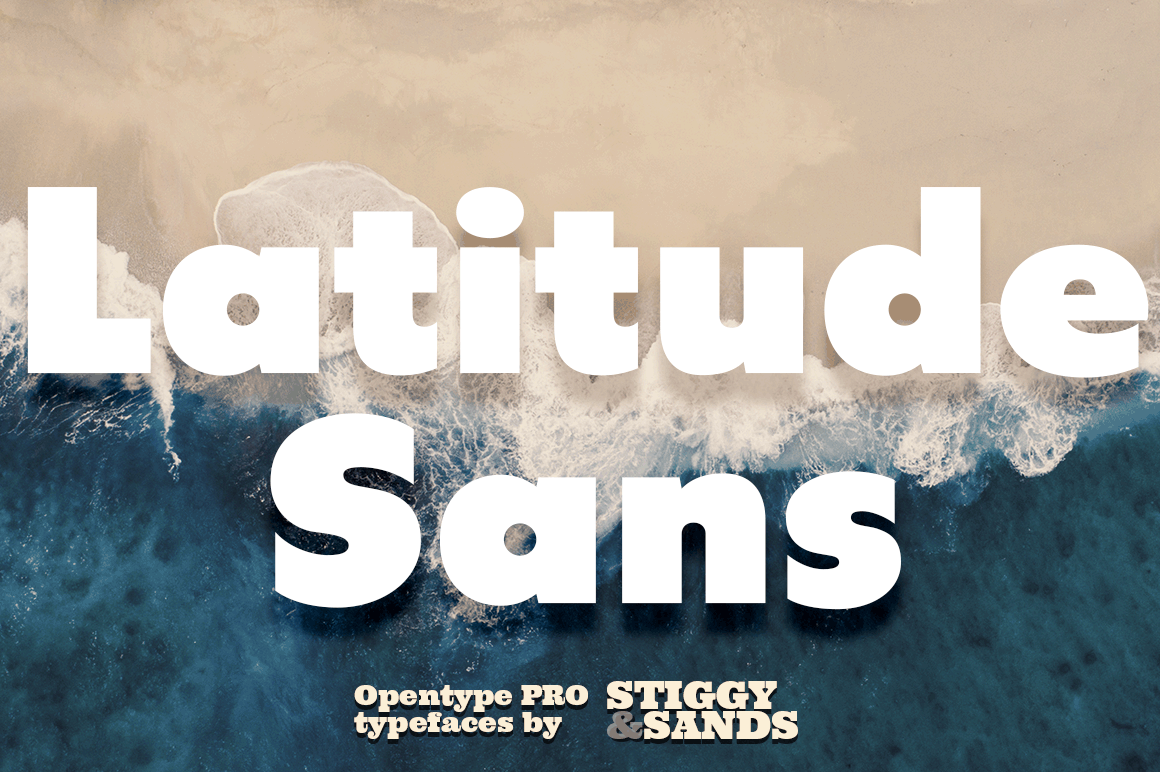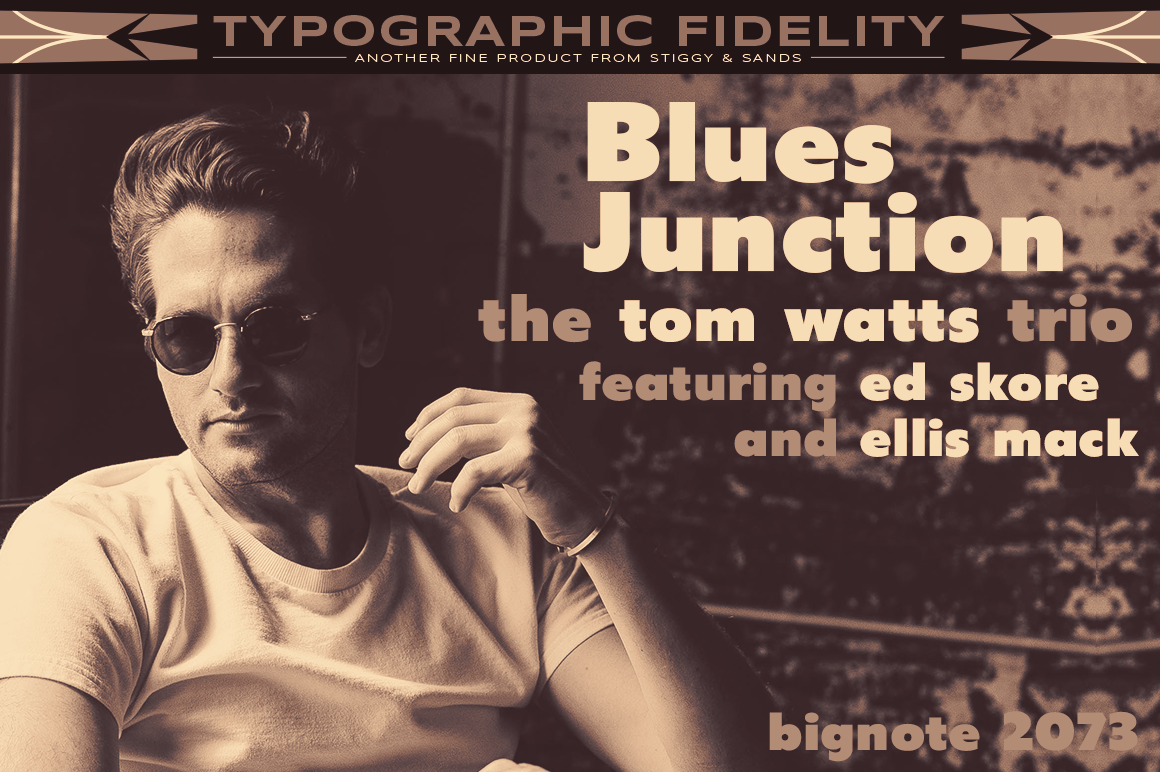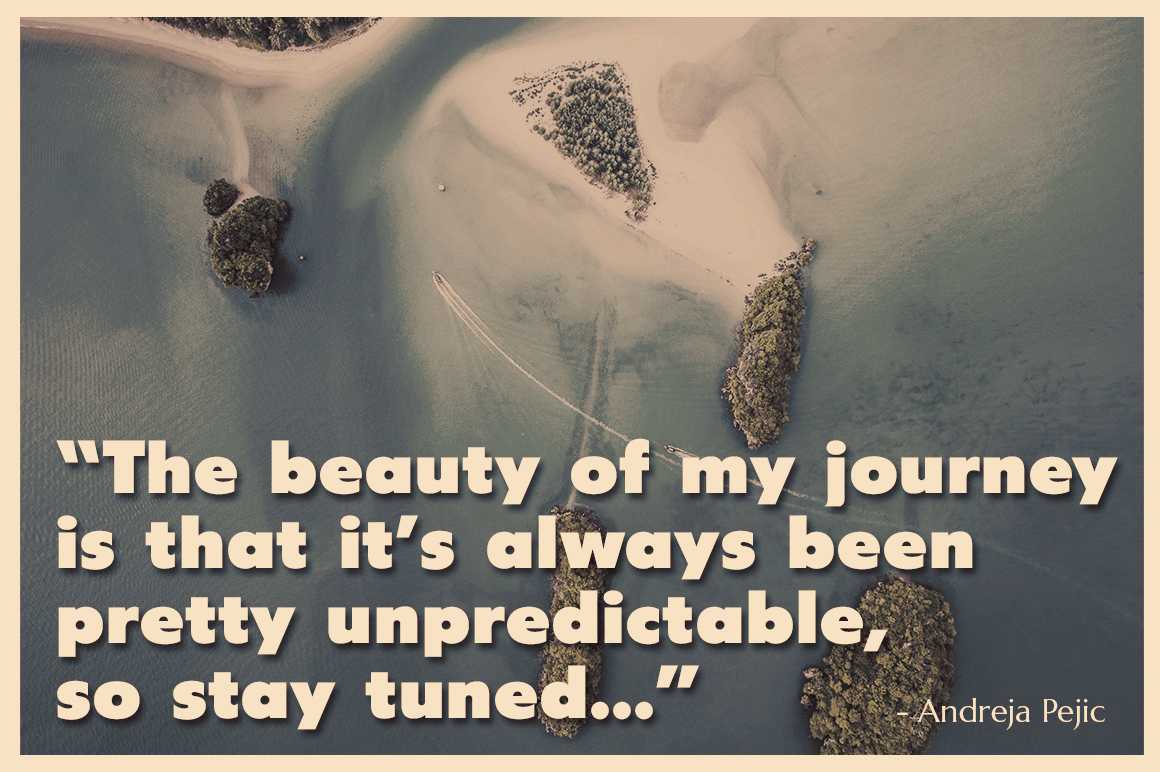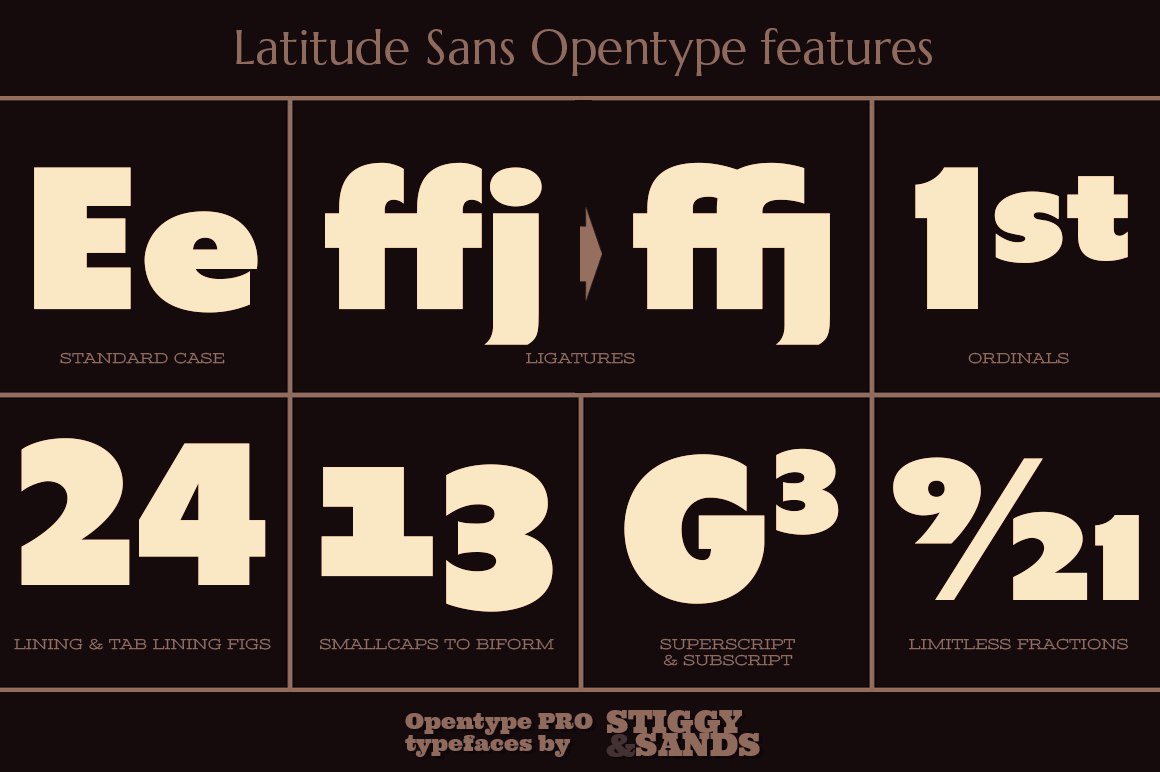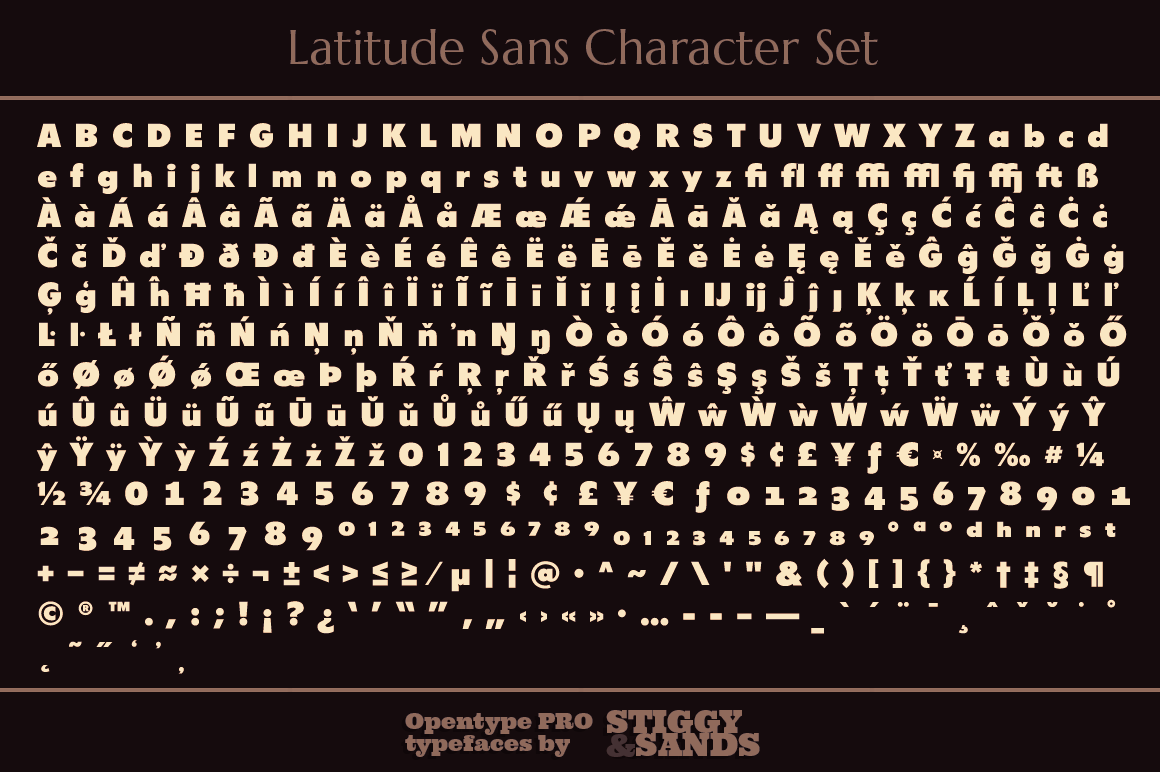
Latitude Sans
An Uber-Black Sans Serif with a Warm Personality
Latitude Sans began as a digitization of a film typeface from LetterGraphics known simply as "Free". The original specimen included standard Capitals and Lowercase, Numerals and minimal Punctuation, a bare bones character set.
We've fleshed out the Latitude Sans typeface to include a full standard character set, an extended international set, and more so it can be a strong heavyweight sans typestyle.
Opentype features include:
- Full set of Inferiors and Superiors for limitless fractions.
- Tabular, Proportional and Oldstyle figure sets.
- Ligatures for a collection of "f" paired sets: fi, fl, ft, ffi, ffl, etc.
Approx. 652 Character Glyph Set: Latitude Sans comes with a glyphset that includes standard & punctuation, international language support, and additional features.